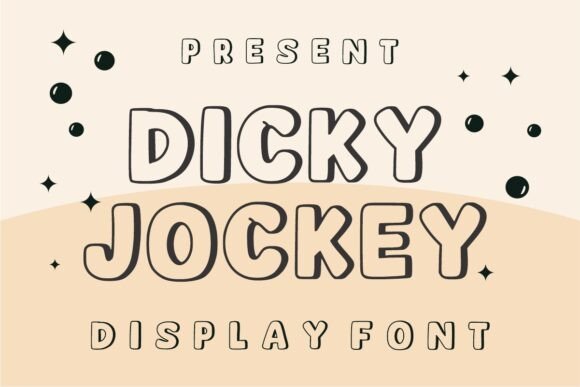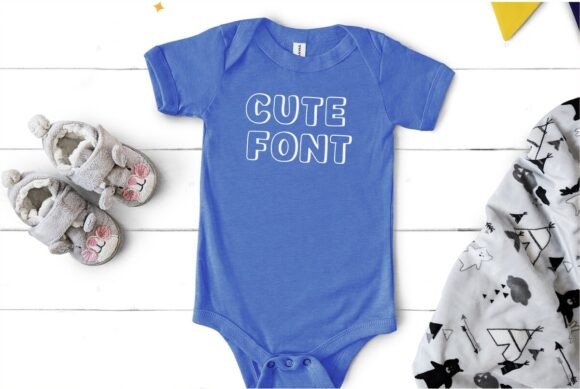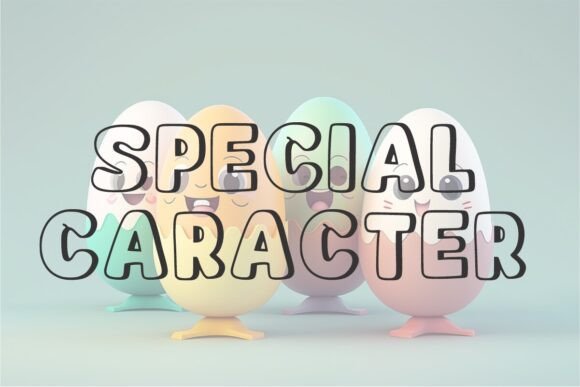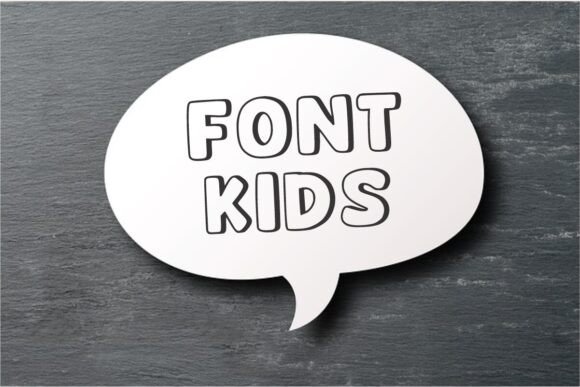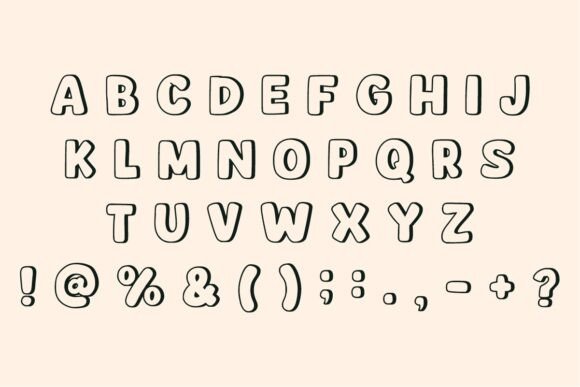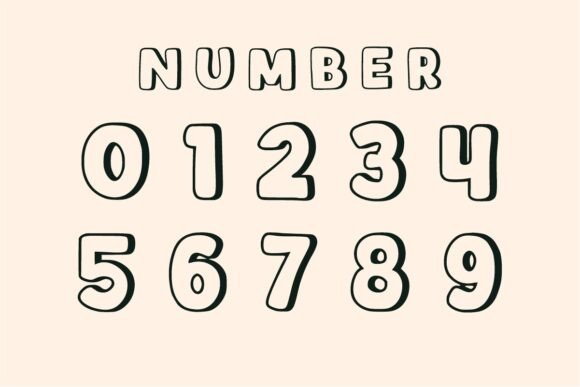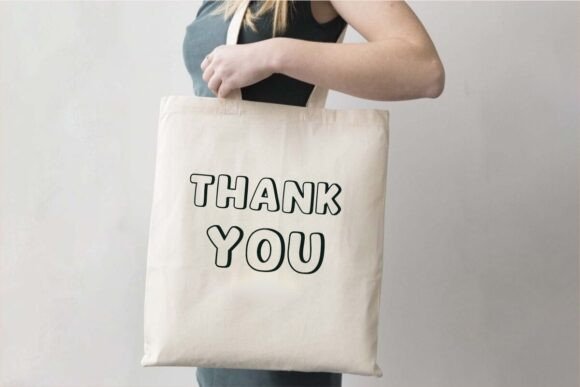
The Perfect Match for Whimsical Designs: Dicky Jockey Font
Remember the moment when you stumbled upon a font that instantly sparked your creativity? For designers, it’s a feeling like no other. You’ve probably been there too, when a particular font brings your design to life and makes it pop. That’s exactly what happens when you add the Dicky Jockey Font to your project.
This cute and bright display font is a designer’s dream come true, especially when it comes to children-themed designs. Its playful vibe is perfectly complemented by bright and pastel colors, making it a must-have for any project that requires a touch of whimsy. With Dicky Jockey Font, your designs will stand out and capture the attention of your audience.
As a valuable addition to your design toolkit, the Dicky Jockey Font is sure to elevate your creative ideas and make them shine. So, get ready to unleash your creativity and make your designs sparkle with this adorable display font.
Dicky Jockey Font Key Features
- Font Family: Dicky Jockey is a sans-serif font family, specifically designed for use in signage, wayfinding, and other display applications.
- Font Size: Dicky Jockey comes in a range of font sizes, from 10pt to 72pt, making it suitable for various display applications.
- Resolution: Designed to be highly legible at high resolutions, making it ideal for use in digital signage and other high-resolution display applications.
- Unique Characteristics: Dicky Jockey features a distinctive, modern design with a rounded edge, making it highly recognizable and memorable.
Dicky Jockey Font Review
I recently had the chance to work with the Dicky Jockey Font, and I must say it’s an interesting choice. Here’s my honest take on what works and what doesn’t.
- The font’s unique, playful personality is a great asset for projects that need a bit of whimsy.
- The bold weight is nicely designed, making it perfect for headings and titles.
- The font’s compact design makes it easy to use in tight spaces.
- The font’s readability can suffer in smaller text sizes, making it less ideal for body copy.
- The font’s quirky style might not be suitable for all projects, especially those with more formal or professional tone.
- The font’s character set is limited, which might cause issues for projects that require a wide range of languages or special characters.
Overall, I think the Dicky Jockey Font is a great choice for projects that need a touch of personality, but it’s not a one-size-fits-all solution. With its unique design and limitations, it’s best suited for projects where you want to make a statement and don’t mind a bit of experimentation.
Getting the Most Out of Dicky Jockey Font
To get the most out of the Dicky Jockey font, use it in bold or italic styles to add emphasis to your text.
Pair the font with other bold or sans-serif fonts to create a visually appealing contrast.
Use the font in headings and titles to create a unique and eye-catching visual identity.
The Dicky Jockey font is commonly used in:
Restaurant and bar menus
Event invitations and announcements
Marketing materials and promotional items
Any design where a playful and whimsical touch is needed.
Alternatives to Dicky Jockey Font
Great Vibes is a script font that is perfect for creating a fun and playful atmosphere. It is ideal for use in titles, headings, and other creative applications where a casual, handwritten feel is desired. Great Vibes is a more elegant and refined alternative to Dicky Jockey Font, with a smoother and more polished appearance.
Pacifico is a beautiful, elegant script font that is reminiscent of a classic handwritten style. It is perfect for use in high-end branding, invitations, and other applications where a sophisticated, luxurious feel is desired. Pacifico is a more refined and sophisticated alternative to Dicky Jockey Font, with a more formal and elegant appearance.